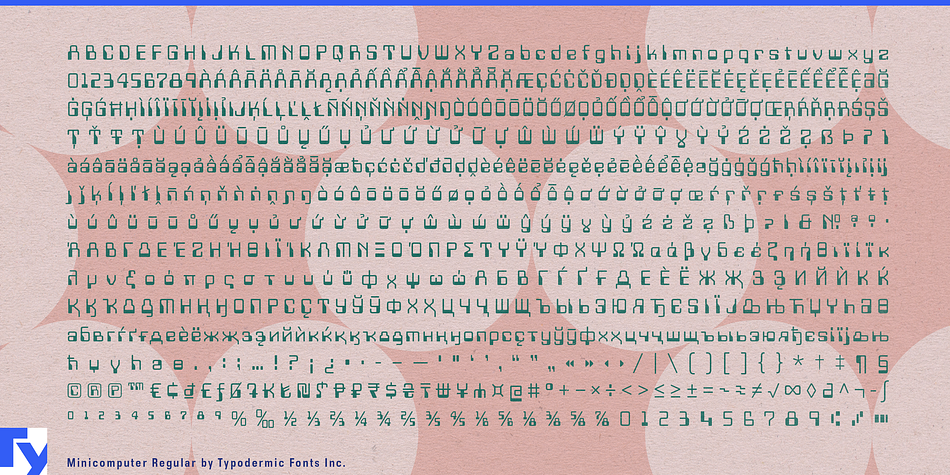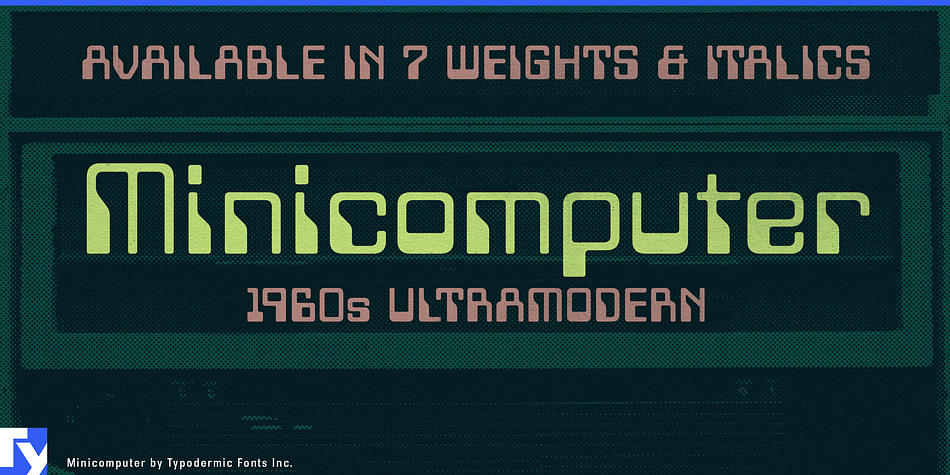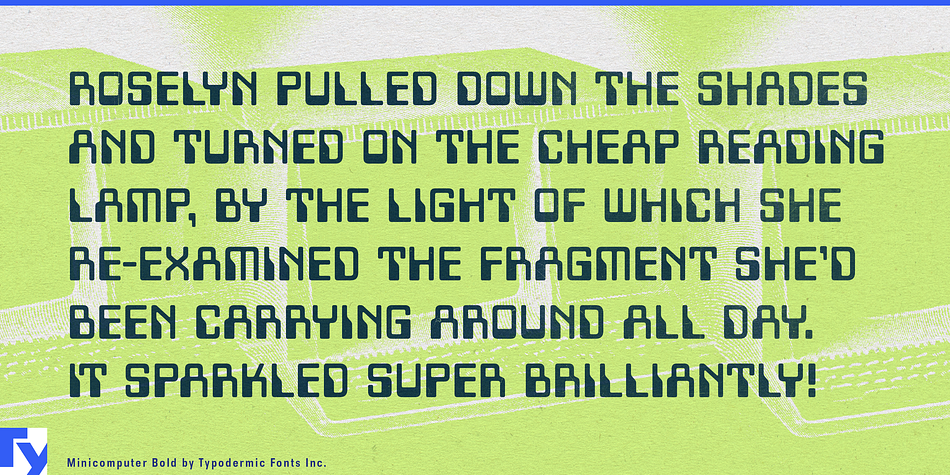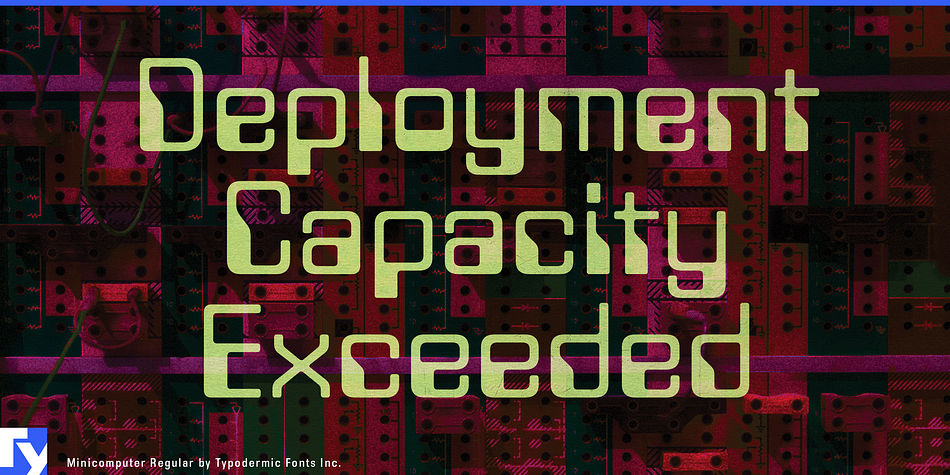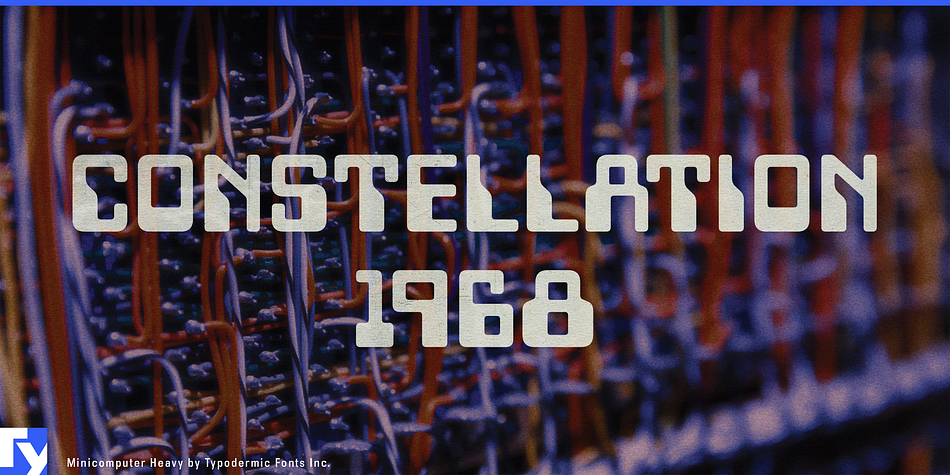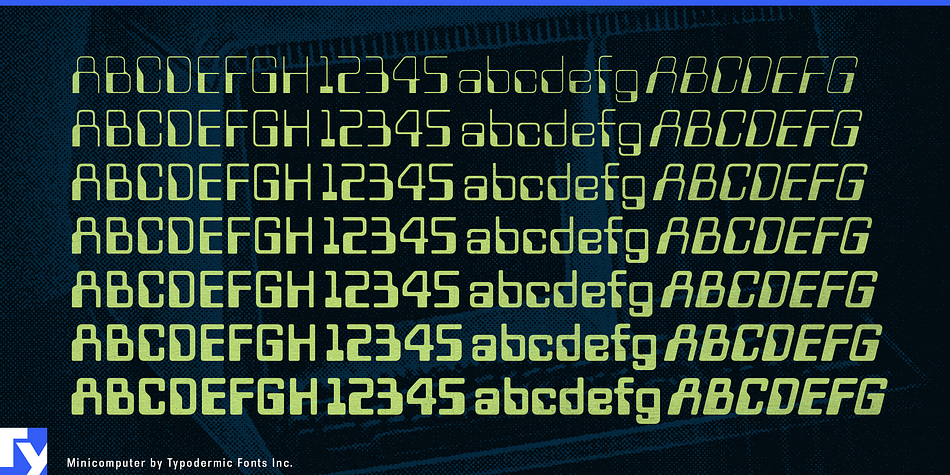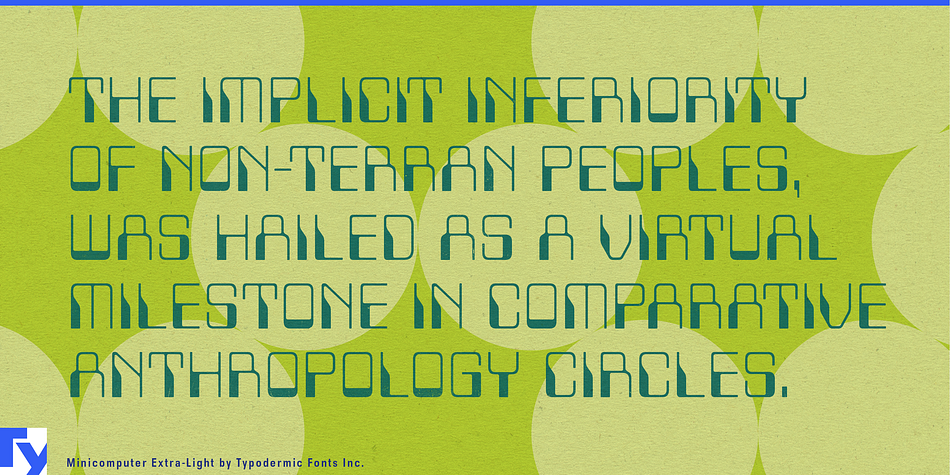
Minicomputer is a retro and pixel font family. This typeface has fourteen styles and was published by Typodermic Fonts Inc.
The strange looking numerals at the bottom of bank checks are printed in magnetic ink in a font called MICR E-13B. This typeface was developed in the mid 1950s and was used by banks in 1960s all the way to the present day. This system only supports numerals and a few control codes but that didn’t stop Leo Maggs. In the mid 1960s, he created Westminster—a typeface based on the look of MICR E-13B. Soon, dozens of magnetic typefaces appeared. The magnetic typeface became associated with cutting edge technology and fashion all the way through to the late 1970s. In the 1980s, home computers appeared. They used pixel fonts and dot matrix type—the old magnetic typefaces all-of-a-sudden looked hokey.
These days, designers are using magnetic typefaces in a different context. The meaning has changed from ultramodern, to old-fashioned, yet still synthetic. But in the half century, since the first magnetic typefaces appeared, we’ve mainly had to old fonts to work with—1990s digitizations of older analog type. That’s why there’s Minicomputer. Minicomputer is a magnetic ink typeface with a versatile range of seven weights and italics.
Language coverage includes most current Latin based languages, Vietnamese, Greek, and Cyrillic. There are OpenType fractions and numeric ordinals as well as plenty of mathematical symbols. Minicomputer has an OpenType old-style numerals feature which brings up the original MICR E-13B numerals. You can even type some of the old control codes if you use fleuron characters.